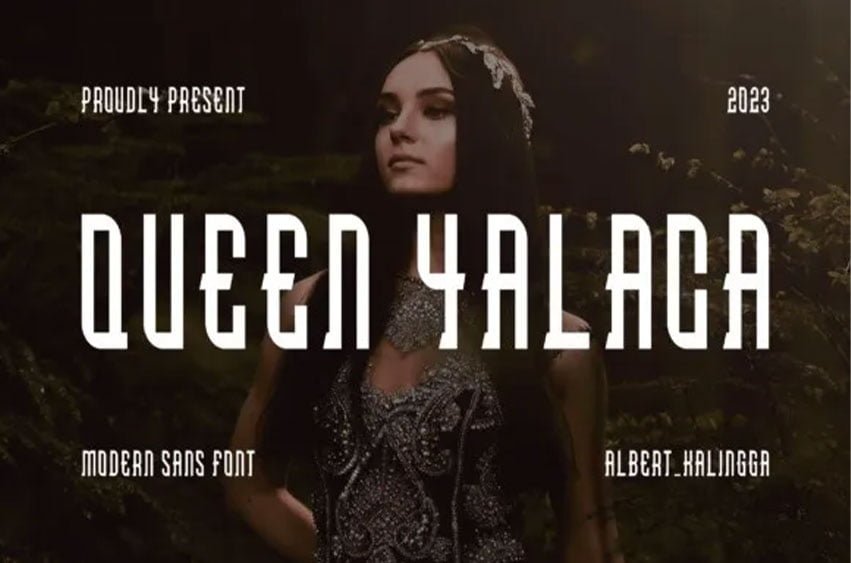
Queen Yalaca Font Modern Font is a bold and authentic display font. The font is suitable for any branding project like logo, t-shirt printing, esports, and many more. outstanding in a wide range of contexts.